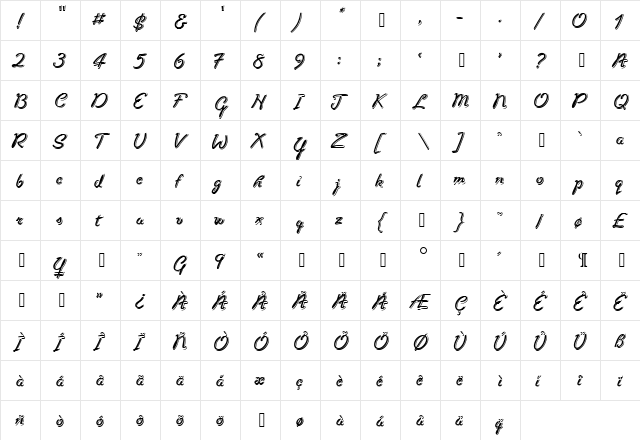
FrenchLetters Regular
| Foundry | by Panache Graphics, |
FrenchLetters is a composed and adaptable typeface that performs quietly and consistently across a wide range of design contexts.